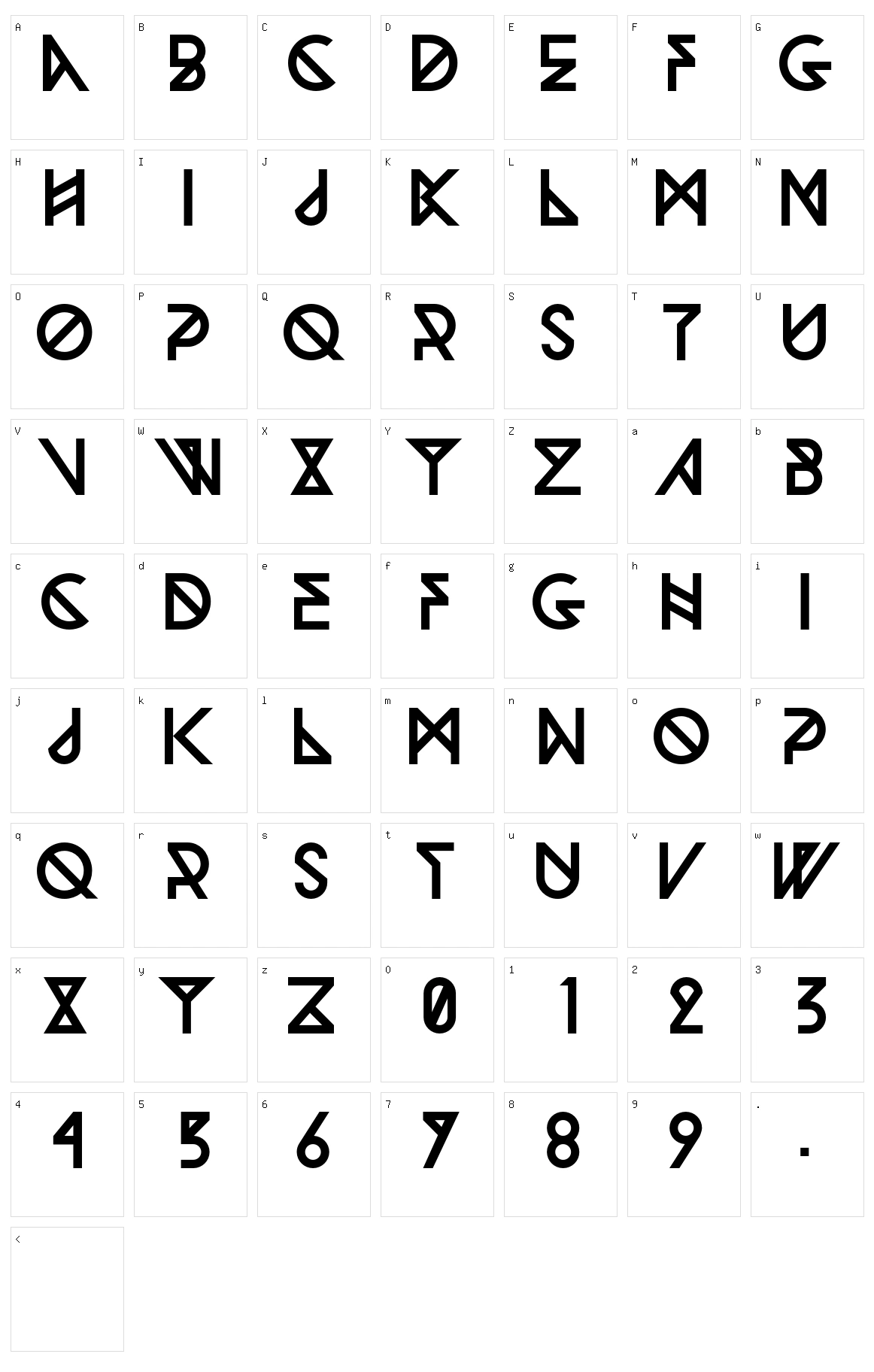
Woodwarrior
Designed by: Anton Bohlin
By Anton Bohlin
Woodwarrior is a typeface inspired by the north, and the contrast between modern man made
structures and untouched nature shaped by wind and ice alone.